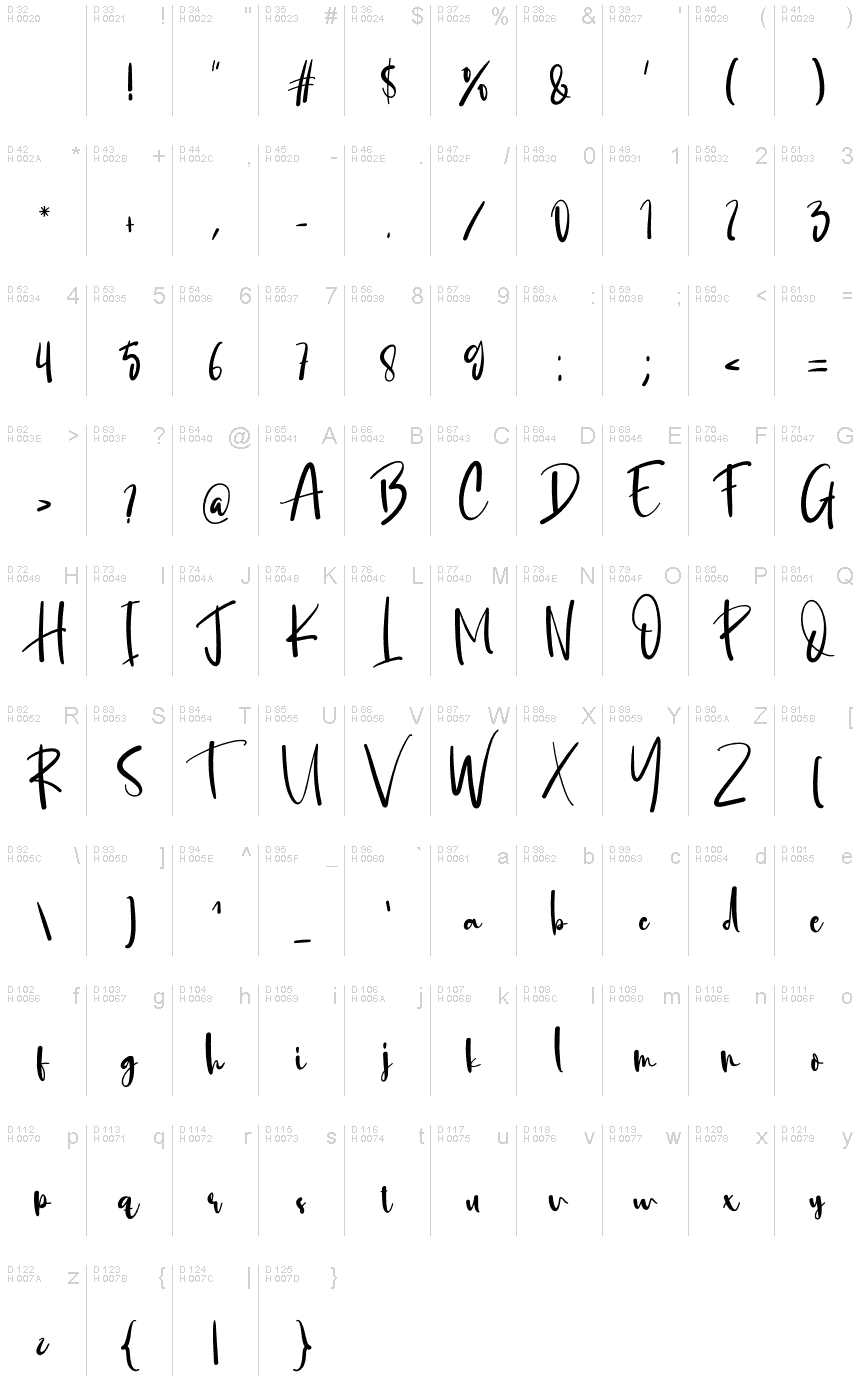
Stencil
Meet Stencil, the captivating creation by renowned font designer Scratchones. This handwritten font combines a touch of elegance with a dash of playfulness, making it perfect for a wide range of creative projects. Its semi-light weight adds an airy feel to your designs, exuding modernity and sophistication.
Whether you're working on an eye-catching logo or an artistic poster, Stencil effortlessly elevates your work to new heights. So go ahead, let your imagination run wild and indulge in the versatility that this remarkable semi-light handwritten font has to offer.